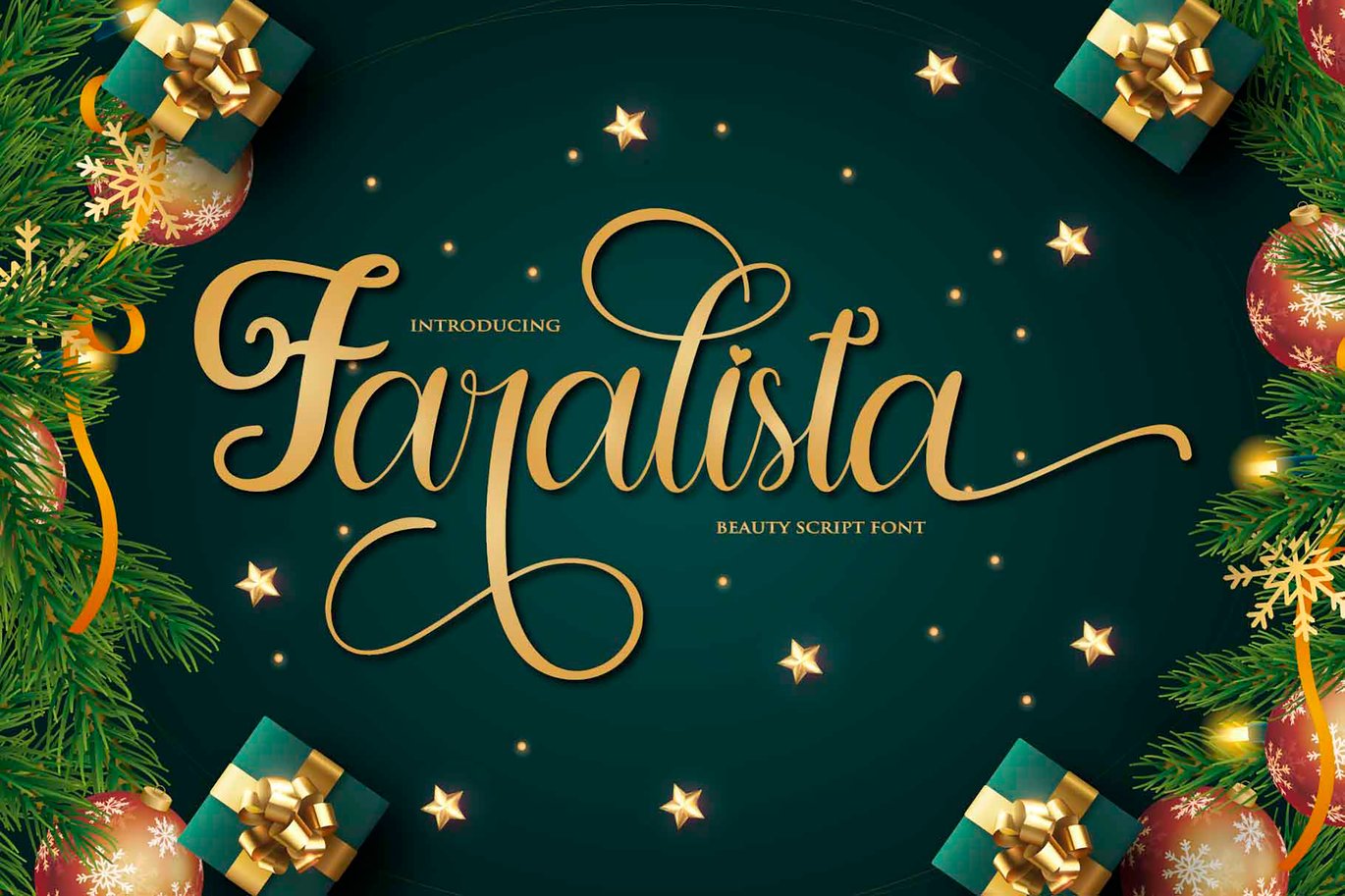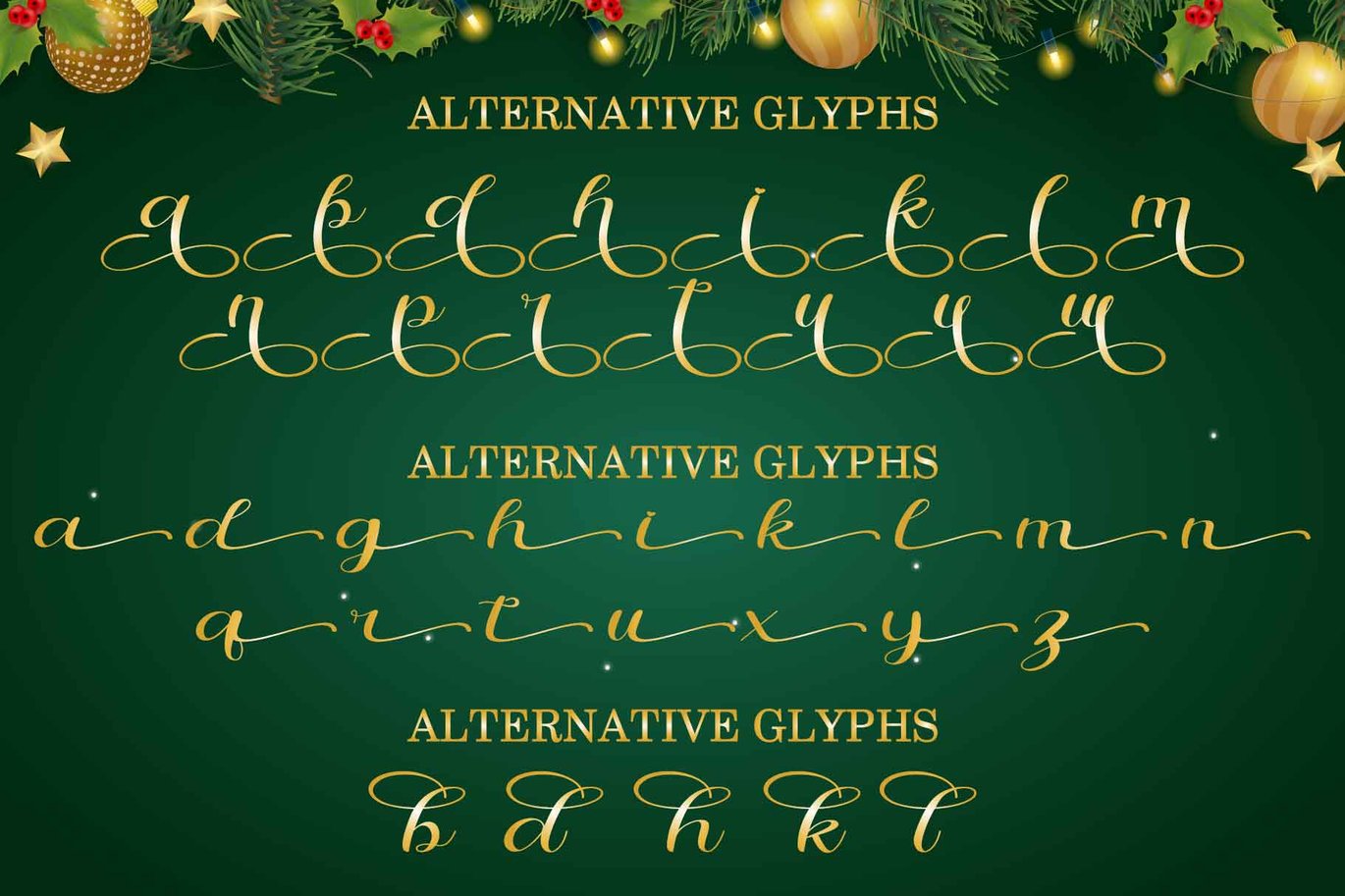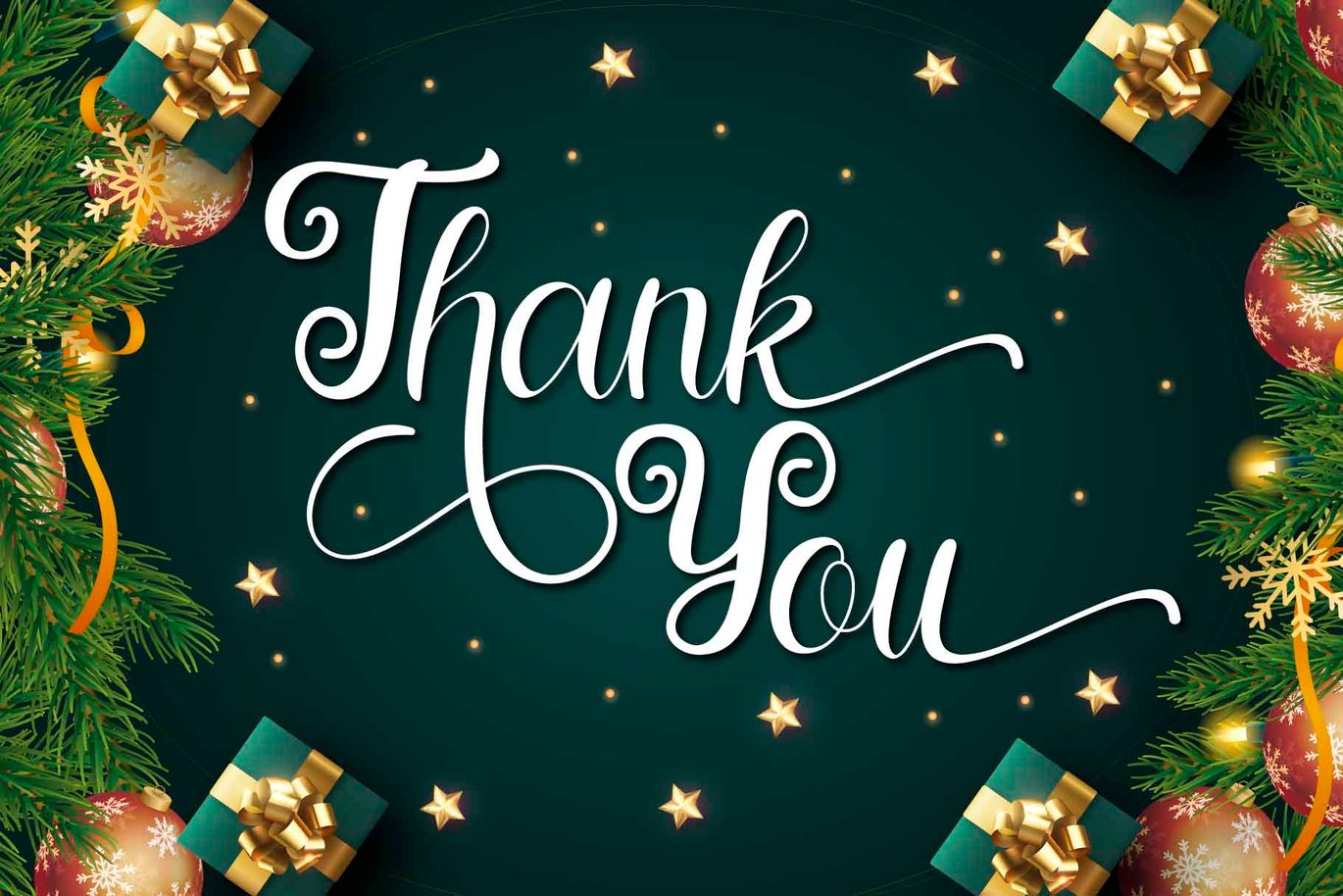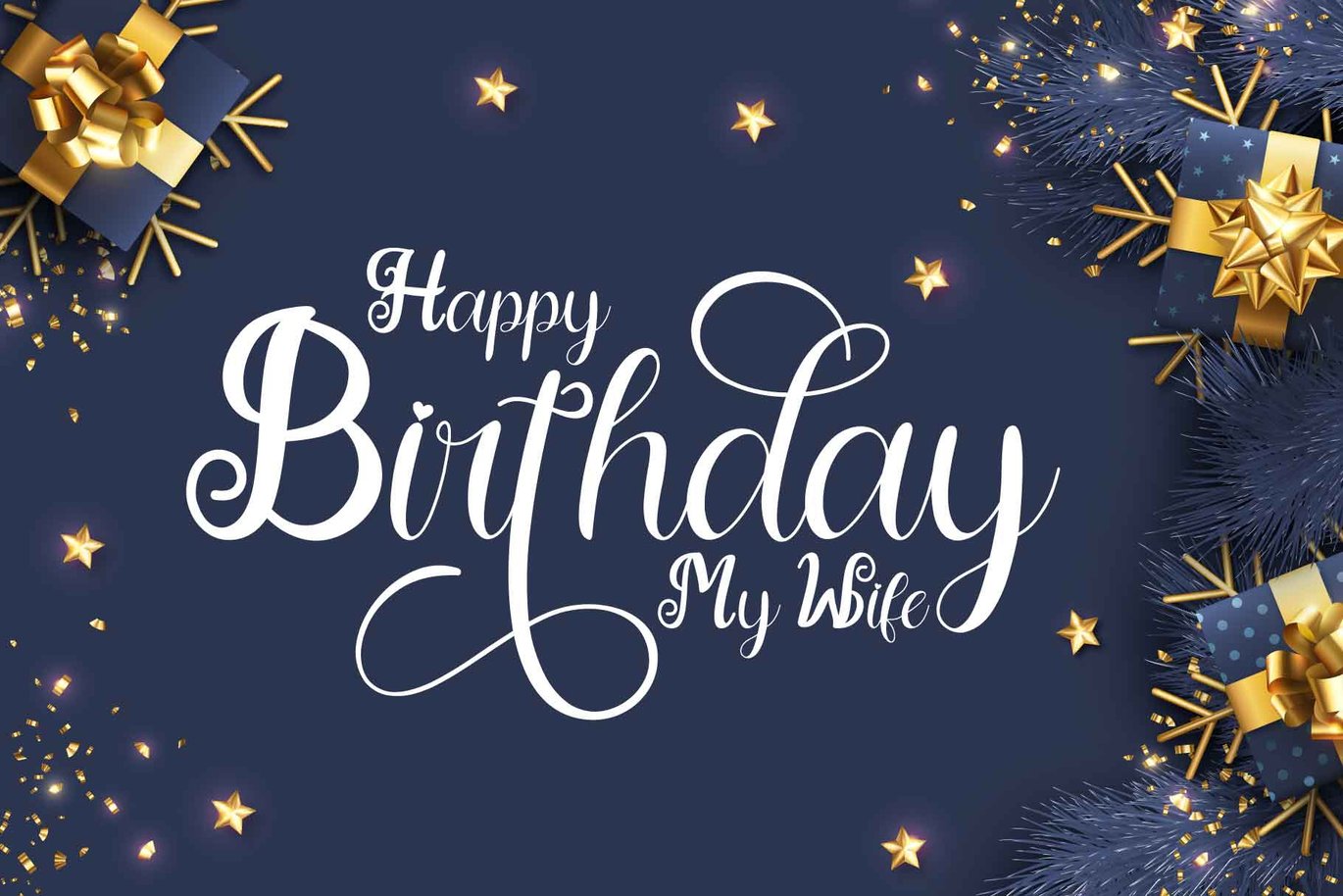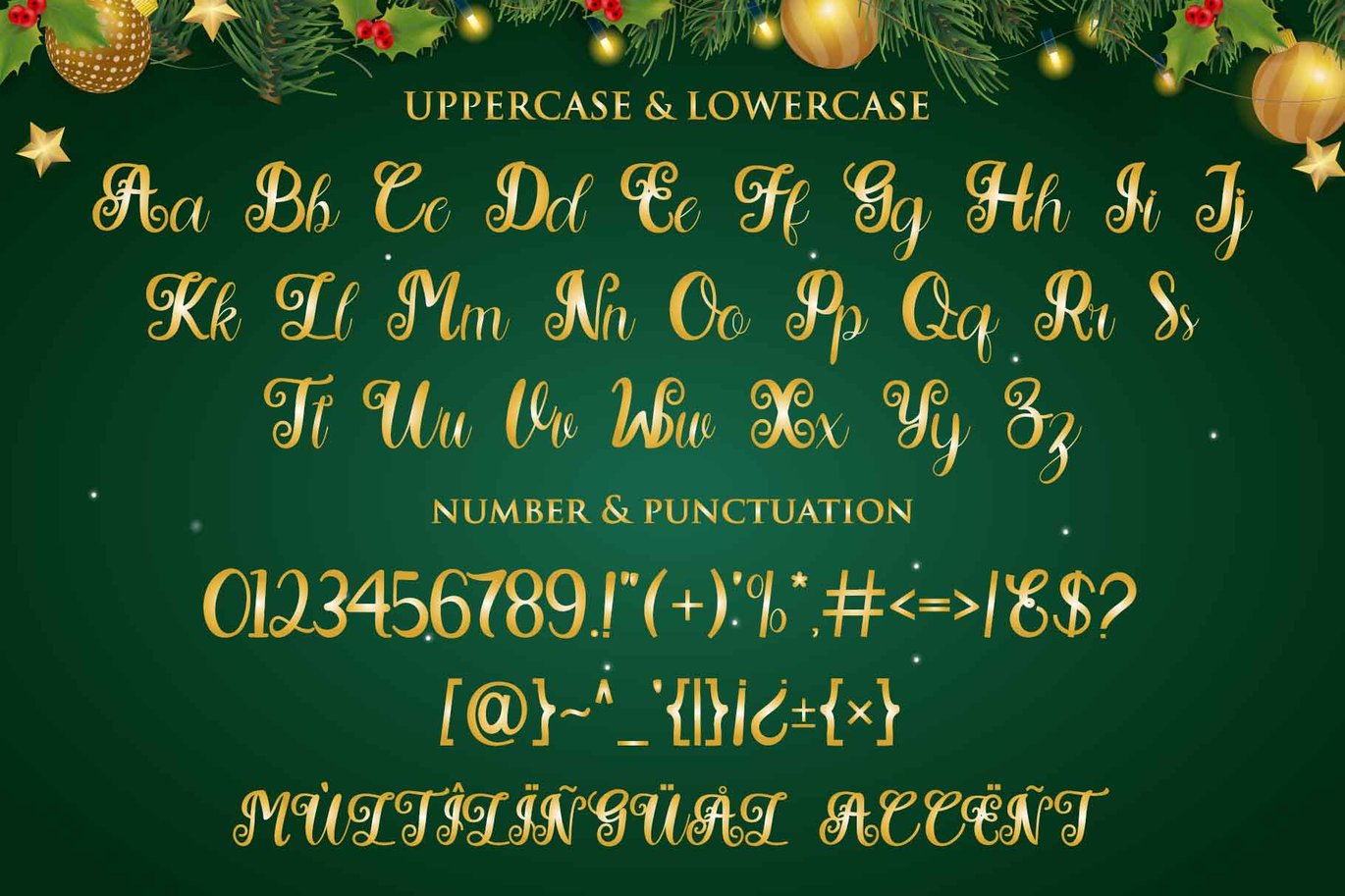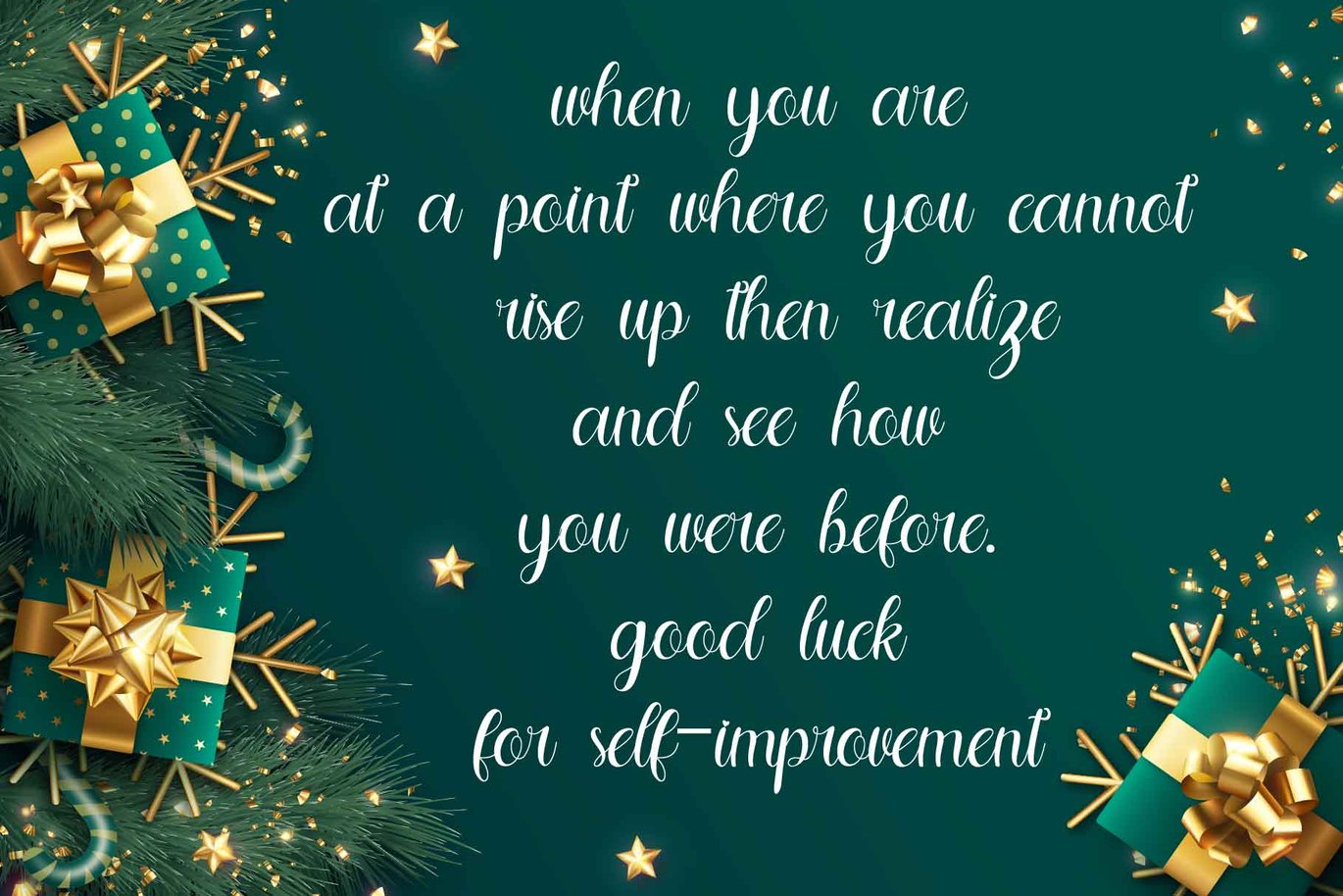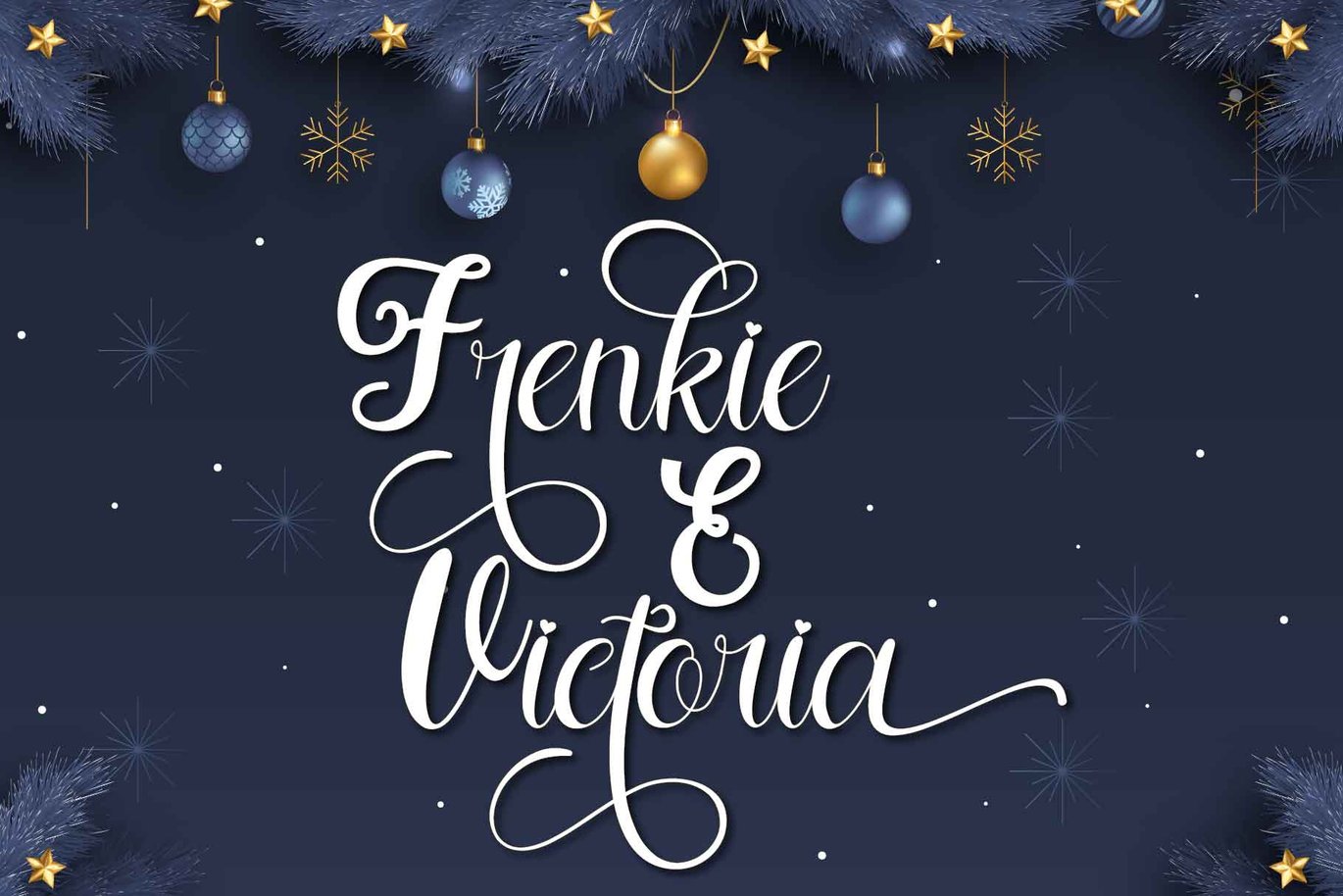
Faralista Script Font
Faralista is a lovely script font. This font can be used for various purposes, including for invitations, weddings, birthdays, fashion, products, feminine, beauty, salon, product packaging, quotes, product designs, crafters, labels, photography, watermarks, t-shirts, logos & branding. Everything can be accessed using software that supports Opentype, such as Adobe Indesign, Adobe CS Illustrator, Adobe Photoshop CC, and Corel Draw.